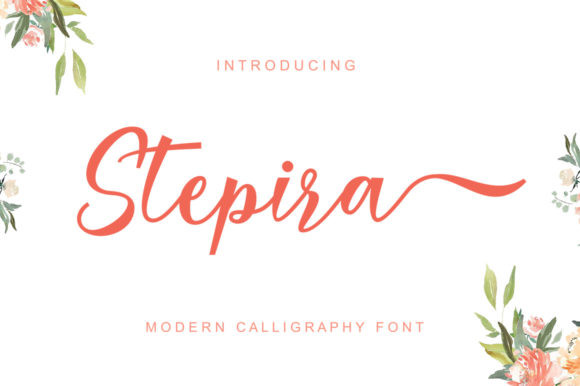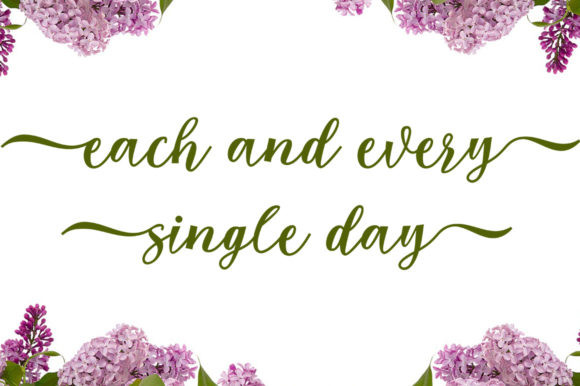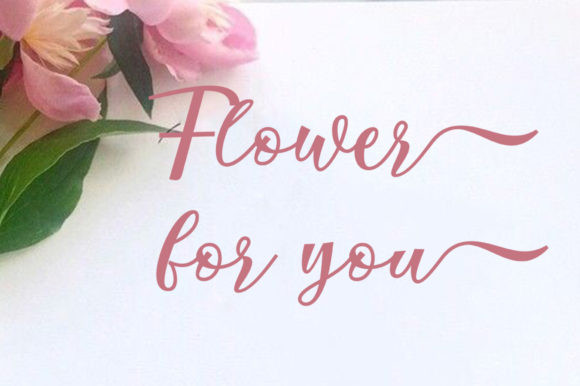
Stepira Font
Stepira is a gorgeous handwritten font. This is a beautiful combination of timeless elegance and authentic calligraphy. It features an incredibly classic style, while still keeping a friendly feel. Stepira is the perfect font for making original and outstanding designs.